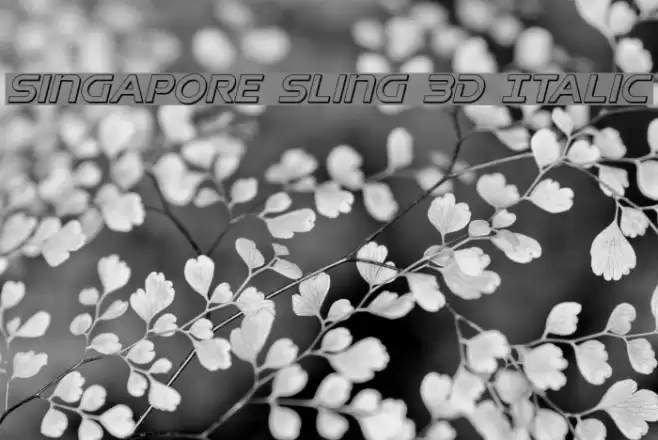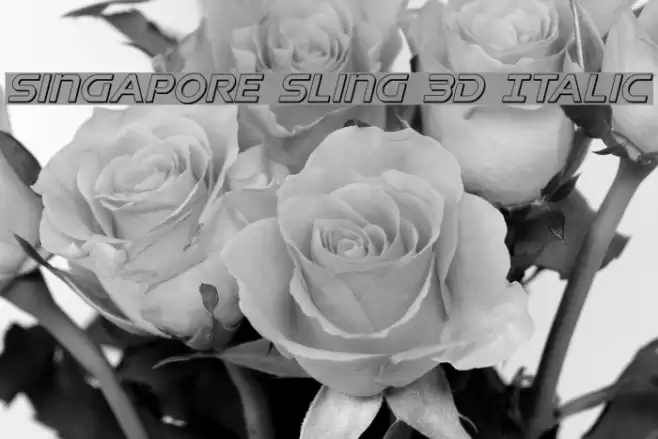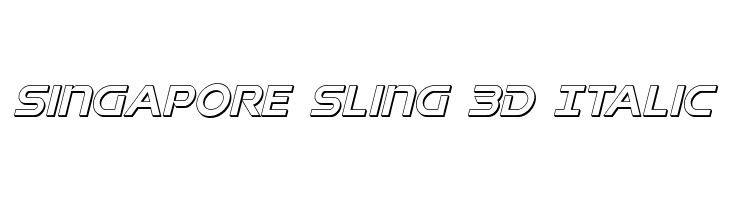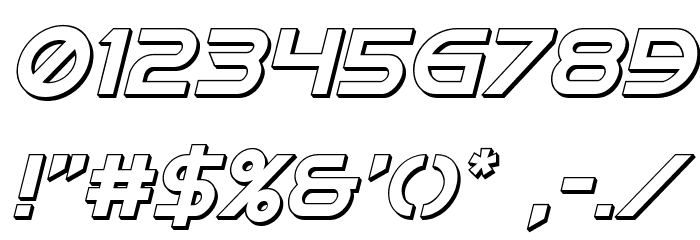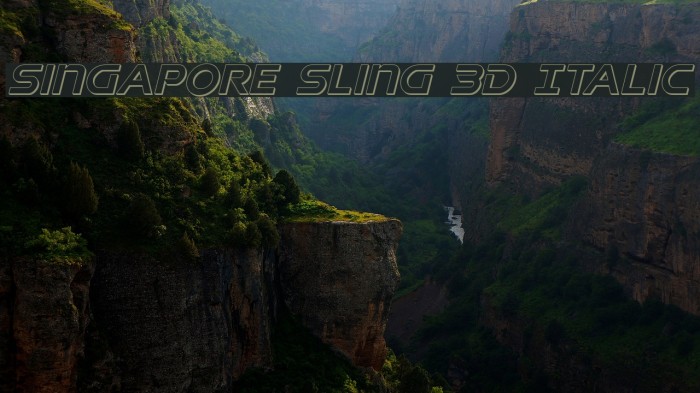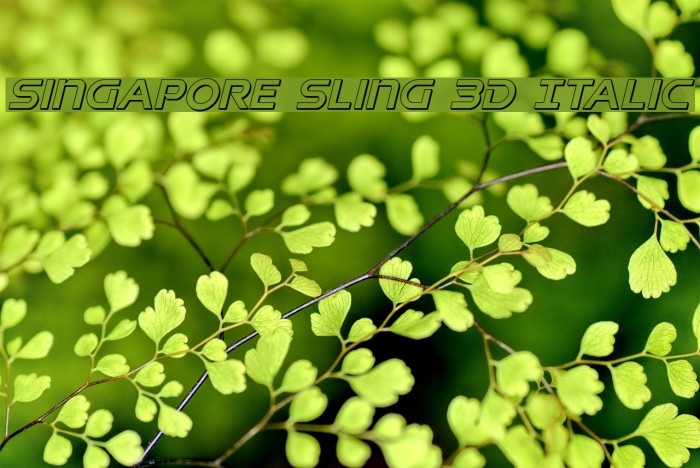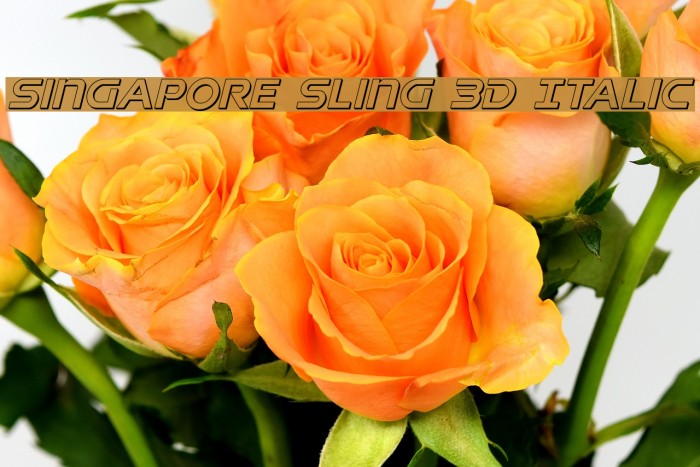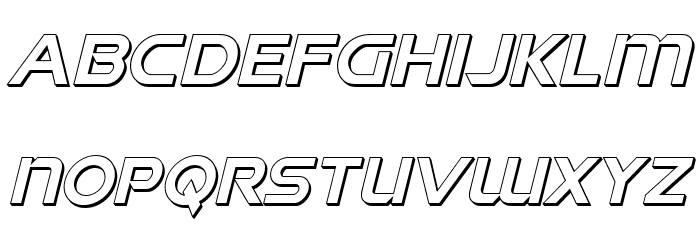
Singapore Sling 3D Italic Font
Singapore Sling 3D Italic Description
This font features a dynamic and futuristic 3D italic style, characterized by bold, angular lines and a sense of movement. The letters are outlined, giving them a hollow appearance that enhances the three-dimensional effect. The design incorporates sharp edges and geometric shapes, making it stand out with a modern and tech-inspired aesthetic. The italic slant adds a sense of speed and urgency, suitable for projects that require a contemporary and energetic vibe. The numerals and special characters maintain the same stylistic approach, ensuring consistency across all elements.
A bold, 3D italic font with a futuristic and dynamic design from Uncategorized fonts.
- Proposed Projects: Ideal for technology branding, video game titles, sci-fi movie posters, and modern advertising campaigns.